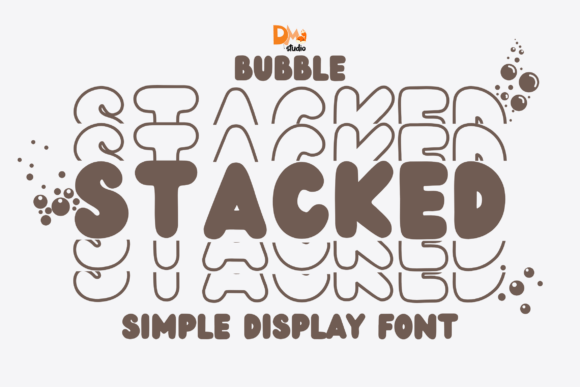
Immerse Yourself in the Whimsical World of Bubble Stacked Font
I still remember the time I was working on a children’s party invitation project, and my client asked for a font that would make the design ‘pop’ with a playful vibe. I scoured through countless font libraries, but nothing seemed quite right. That was until I stumbled upon the Bubble Stacked Font. Its unique stacked effect and bold, full-bodied letters instantly caught my attention, and I knew I had found the perfect fit. In this article, I’ll share my experience with this delightful font, its features, and how to make the most of it in your designs.
A Honest Review of Bubble Stacked Font
- ✨ Unique stacked effect that adds a playful touch to any design
- ✅ Bold and full-bodied letters that grab attention
- 💥 Perfect for children’s projects, party invitations, or branding endeavors
- 🎉 Great for poster designing, social media graphics, or any design that needs a bold, whimsical personality
While the Bubble Stacked Font is a fantastic addition to any design project, there are a few things to keep in mind:
- ⚠️ The font’s bold nature may overpower smaller text sizes or more delicate design elements.
- 🤔 Some letters may require manual kerning to achieve optimal spacing.
- Experiment with the font’s OpenType features, such as stylistic alternates, to add more variety to your text.
The Designer Inspiration Behind Bubble Stacked Font
Imagine a designer who loves playing with words and letters, always on the lookout for new ways to make typography more fun and engaging. The creator of Bubble Stacked Font is someone who believes that fonts should be like playdough – malleable, colorful, and full of life. With a passion for childhood nostalgia and a knack for creativity, this designer set out to craft a font that would bring a smile to people’s faces. And so, the Bubble Stacked Font was born – a font that’s equal parts playful, bold, and whimsical.
| What makes Bubble Stacked Font unique? | The font’s stacked effect and bold, full-bodied letters make it stand out from other fonts. |
| Is Bubble Stacked Font suitable for professional designs? | While the font is playful, its bold nature makes it suitable for professional designs that require attention-grabbing typography. |